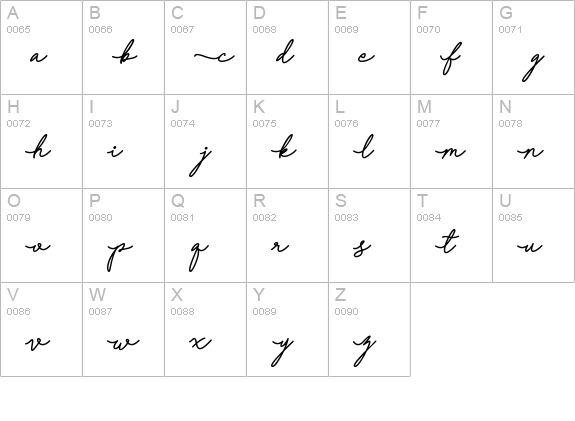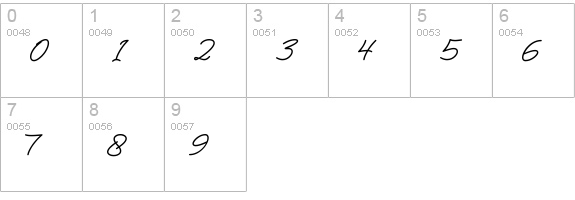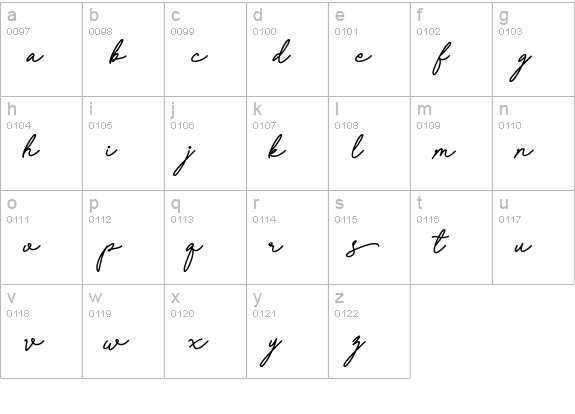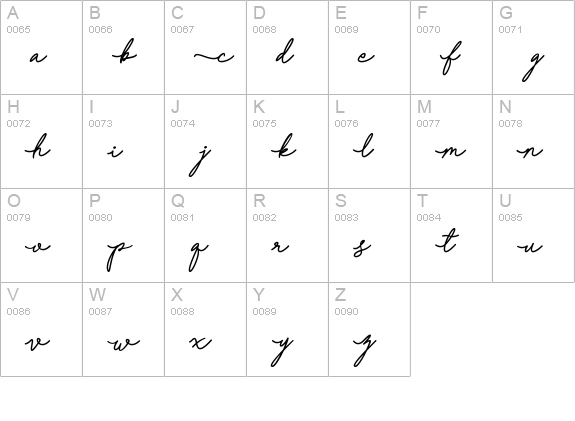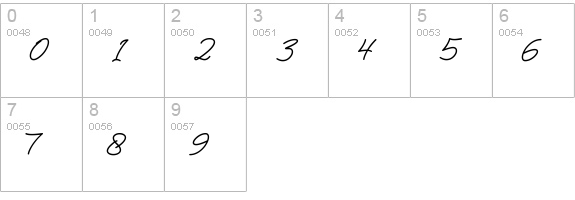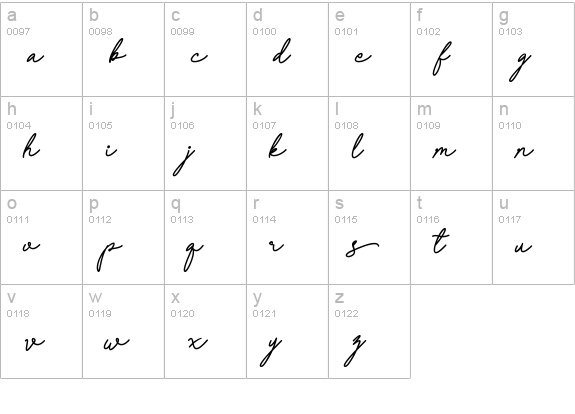
Coffee Signs is a free for personal use font in the Script > Handwritten category, designed by arukidzfl. It has been downloaded 431 times and is available for Windows, Mac and Linux.
Introducing Coffee Signs font - a charming and whimsical typeface that exudes warmth and nostalgia. With its playful curves and unique design, Coffee Signs font is perfect for adding a touch of personality to your projects. Whether you are creating signage for a cozy coffee shop or designing invitations for a rustic wedding, this font is sure to stand out.